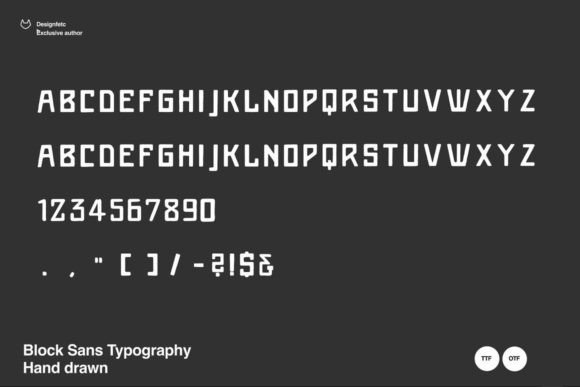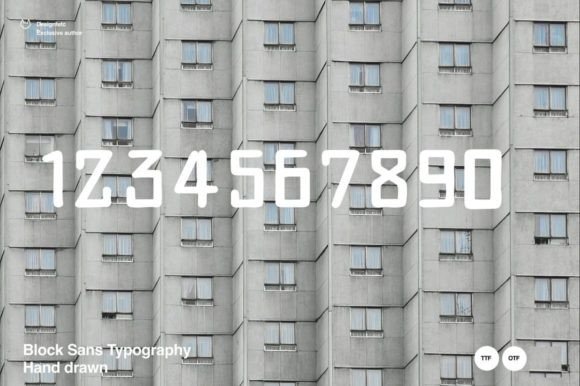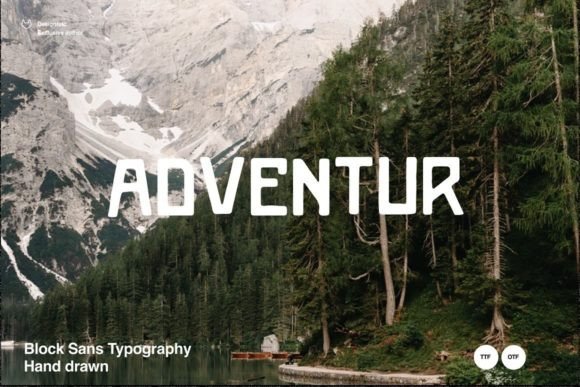
The Perfect Match for Your Creative Project: Block Sans Font
Have you ever stared at a blank page, searching for the perfect font to bring your design to life? You’ve poured your heart and soul into your project, and yet, something’s missing. It’s in moments like these that a great font can be the difference between a good design and a truly exceptional one. This is where the Block Sans Font comes in – a cool and neat handwritten font that’s sure to elevate your creation.
Whether you’re working on a personal project or a professional brief, the Block Sans Font is an incredible asset to have in your library. Its versatility and unique character make it the perfect match for any topic or style, allowing you to add a personal touch to your design. With the Block Sans Font, you’ll be able to convey your message in a way that’s both engaging and memorable.
Block Sans Font Key Features
- Font Family: Block Sans is a sans-serif font family designed for readability and versatility.
- Character Set: Block Sans includes a comprehensive set of characters, including Latin, Cyrillic, and Greek alphabets, as well as punctuation and symbols.
- Unique Characteristics: Block Sans features a distinctive, geometric design with a strong x-height and a subtle, rounded feel, making it suitable for body text and display typography.
Block Sans Font Review
Overall, I think Block Sans is a solid addition to any designer’s font collection. It works well in both digital and print projects, offering a clean and modern aesthetic.
Here are some of the things I think Block Sans does particularly well:
- ✨ Clean lines and geometric shapes create a visually appealing font that’s easy to read.
- ✨ The font is highly versatile, making it suitable for a wide range of applications, from body text to headings.
- ✨ The Block Sans font family is relatively extensive, with multiple weights and styles available.
- ⚠️ The font may not be the best choice for projects that require a lot of fine detail or intricate typography.
- ⚠️ Some users have reported issues with the font’s kerning, particularly at smaller font sizes.
Overall, I think Block Sans is a great choice for designers who want a clean, modern font that’s easy to work with. While it may not be perfect, its strengths outweigh its limitations, making it a solid addition to any font collection.
Tips for Getting the Most Out of Block Sans Font
Block Sans Font is a versatile and modern sans-serif font that works well for a variety of designs. To get the most out of it, consider the following tips:
1. Use it for headings and titles to add a touch of modernity to your design.
2. Pair it with other sans-serif fonts to create a clean and minimalist look.
3. Experiment with different font sizes and styles to add visual interest to your design.
Block Sans Font is suitable for a variety of designs, including: